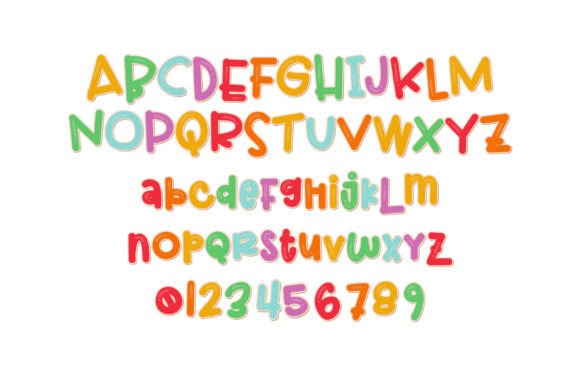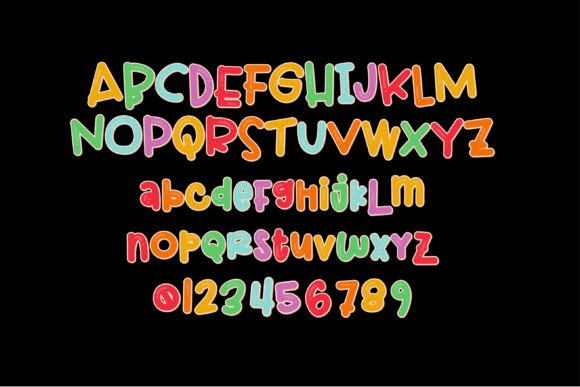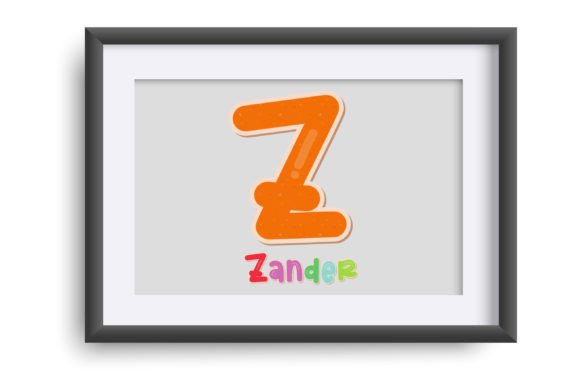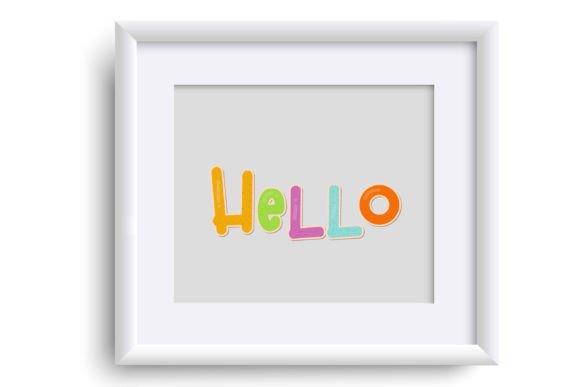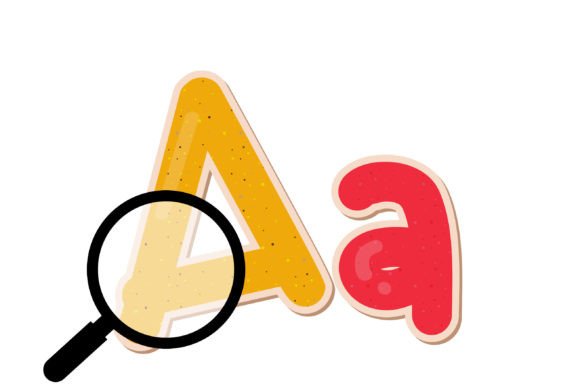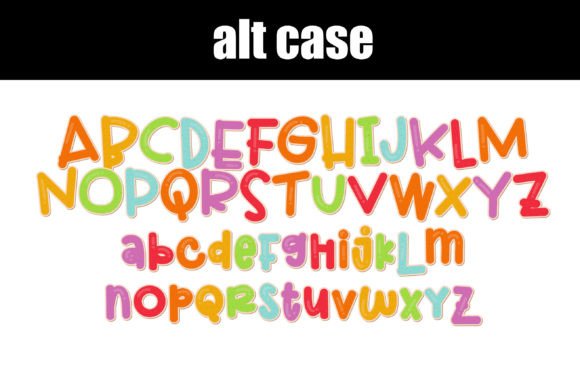
The Perfect Treat for Your Designs: Introducing the Circus Cookies Font
Have you ever been stuck trying to find the perfect font to capture the playful spirit of your creative project? Maybe you’re designing a children’s book, a festive advertisement, or a joyful social media post. Whatever it is, you know that the right font can make all the difference. I’ve been there too, scrolling through font libraries, searching for that one special font that adds a pinch of magic to my designs.
That’s when I stumbled upon the delightful Circus Cookies Font – a lively and colorful font that radiates cheer and charm. With its unique blend of hues and styles, this font is the perfect treat for designers looking to add a touch of playfulness and whimsy to their work. Its PUA encoding makes it easy to access all glyphs and swashes, ensuring that your words sparkle with the delightful energy of Circus Cookies Font.
Circus Cookies Font Key Features
- Unique Characteristics: The Circus Cookies Font features a whimsical, hand-drawn design with intricate details and textures, giving it a distinctive and eye-catching appearance.
Circus Cookies Font Review
I recently had the chance to work with the Circus Cookies Font, and I must say it’s a fun and quirky addition to any project. ✨ The playful and whimsical feel of this font is perfect for creating a sense of excitement and wonder.
Here are some of the things that work well with this font:
- Unique and creative letterforms that add a touch of magic to any text.
- Highly legible, even at smaller font sizes.
- Works well in both digital and print applications.
- A wide range of language support, making it a great option for international projects.
- May not be suitable for formal or professional projects due to its playful nature.
- Lack of bold weight options, which can limit its use in certain applications.
- Some users may find the font’s irregularities and quirks distracting.
Overall, I think Circus Cookies Font is a great addition to any designer’s toolkit. It’s perfect for creating eye-catching titles, headings, and other text elements that need a little extra flair. Just be mindful of its limitations, and you’ll be sure to get the most out of this fun and quirky font. ⚠️
Use Circus Cookies Font to add a playful touch to your designs.
Pair it with bold colors and fun illustrations for a whimsical look.
Circus Cookies Font is perfect for:
Children’s party invitations and decorations.
Food and beverage branding (e.g., ice cream shops, bakeries).
Whimsical wedding invitations and decorations.